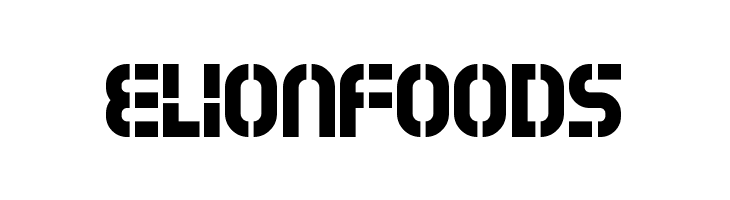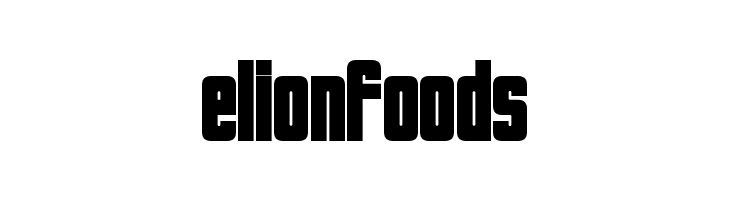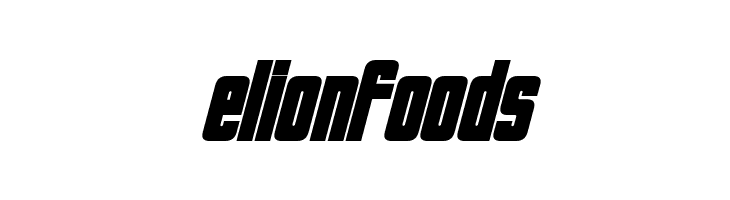
• Vector Sigma Condensed
A bold, condensed, and geometric font with a futuristic style.
• Exostencil
A bold, stencil-style font with geometric cuts and a modern industrial feel.
• Exostencil Italic
A bold, italic stencil font with a modern, industrial look.
• Callie-Mae
A playful, rounded font with a modern and friendly appearance.
• Callie-Mae Italic
A smooth, italic font with rounded edges and a modern, dynamic style.
• Callie-Mae Bold Italic
A bold, italicized font with rounded, slightly condensed characters.
• Callie-Mae Bold
A bold, rounded font with a playful and modern aesthetic.
• Giedi Ancient Autobot
A futuristic, geometric font with bold, angular shapes and a mysterious, ancient script vibe.
• Invaders Bold
A bold, geometric font with a retro arcade style and high contrast.
• Invaders Bold Italic
A bold, italicized font with a dynamic and modern style.